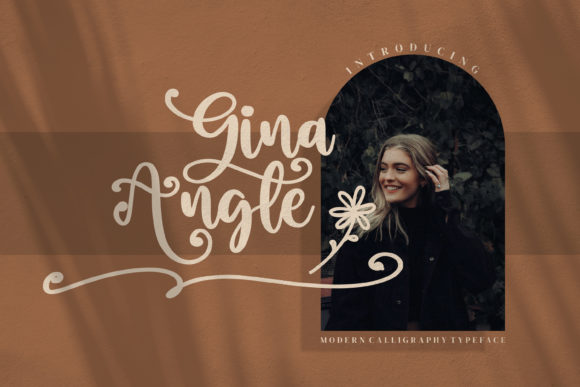
Introducing Gina Angle: A Dazzling Script Font for Comic Lettering Enthusiasts!
Dive into the enchanting world of Gina Angle, a captivating script font that will transform your comic lettering dreams into a mesmerizing reality. This exquisitely crafted masterpiece is a testament to meticulous design, featuring intricate details and a captivating flow that will add a touch of magic to your creative endeavors. Get ready to unleash your artistic flair and leave your readers spellbound with the captivating allure of Gina Angle.
Transcend Ordinary Lettering with Gina Angle:
With Gina Angle as your trusted companion, elevate your comic lettering skills to new heights. This font is not merely a collection of characters; it's an invitation to embark on a journey of artistic exploration, where imagination knows no bounds. Let your creativity soar as you effortlessly conjure eye-catching comic lettering that leaps off the page and captivates readers with its dynamic presence.
Unleash Your Inner Artist:
Gina Angle is the ultimate tool for unleashing your inner artist. Its elegantly crafted characters dance across the page, providing a beautiful canvas for your storytelling prowess. Each letter is meticulously designed to evoke a sense of wonder and intrigue, inviting readers to immerse themselves fully in your captivating narratives.
Effortless Access to a World of Beauty:
Gina Angle is meticulously engineered to provide effortless access to its full repertoire of glyphs and swashes. This PUA-encoded font allows you to effortlessly incorporate stunning embellishments and variations into your lettering, adding depth and texture to your creations. Unleash your artistic vision without limits and let Gina Angle guide you towards lettering mastery.
A Font that Inspires and Enchants:
Gina Angle is more than just a font; it's an experience that will ignite your passion for storytelling. With its graceful curves and enchanting details, this font has the power to transform ordinary words into captivating tales. Let Gina Angle inspire you to weave mesmerizing narratives that transport readers to fantastical realms and leave them yearning for more.